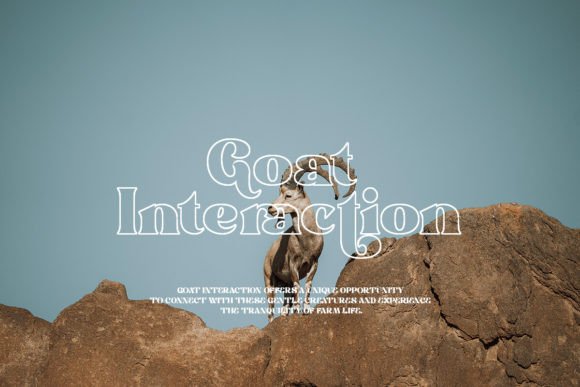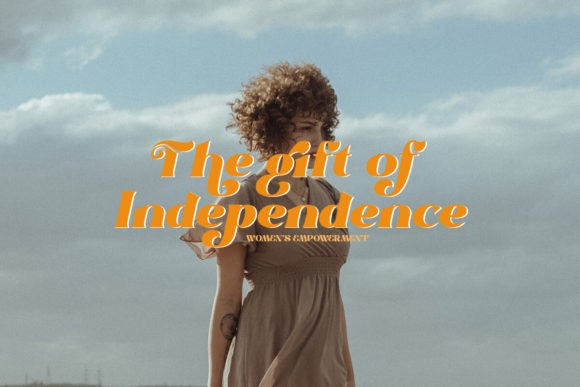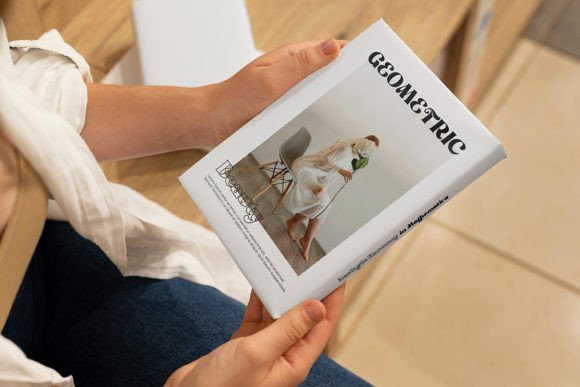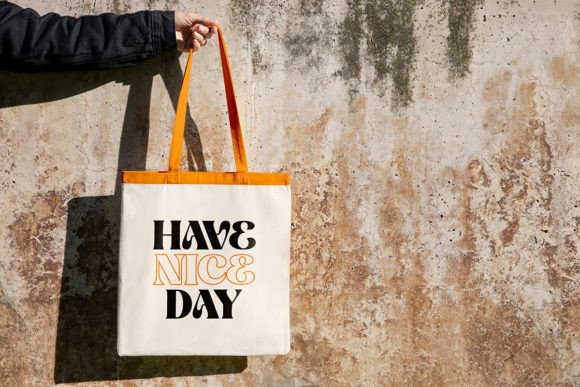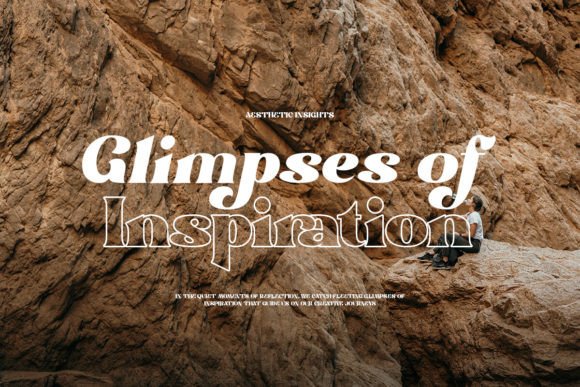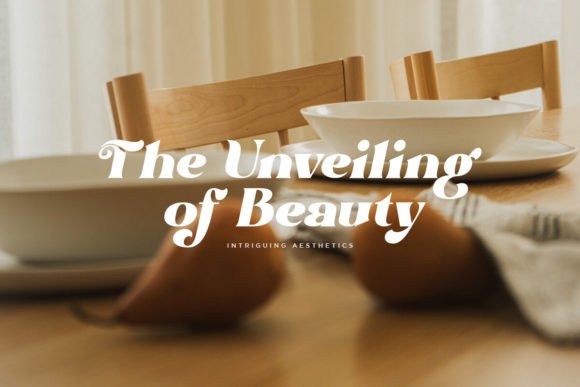
Emerge Font: A Bold Serif Display Typeface for Unforgettable Designs
In the world of typography, fonts play a crucial role in conveying messages, evoking emotions, and creating a lasting impression. Among the numerous typefaces available, the Emerge Font stands out with its unique and bold serif display style. This captivating font is designed to make a statement, featuring distinctive thick lines that exude strength and firmness. In this article, we’ll explore the Emerge Font in-depth, discussing its characteristics, uses, and benefits for designers and crafters.
Classic Serif Elements Meet Modern Touches
The Emerge Font seamlessly combines classic serif elements with modern touches, creating a visually striking and bold appearance. The font’s serif style is reminiscent of traditional typefaces, while its modern twists add a fresh and contemporary feel. This blend of old and new makes the Emerge Font an excellent choice for designers seeking to create elegant yet modern designs.
Unforgettable Visual Appeal
The Emerge Font is specifically designed to evoke elegance while maintaining a modern edge. Its bold and striking appearance makes it ideal for graphic design projects, posters, and layouts that require an unforgettable visual appeal. Whether you’re working on a branding project, a magazine layout, or a promotional poster, the Emerge Font is sure to grab attention and leave a lasting impression.
Key Features of the Emerge Font
- Bold Serif Style: The Emerge Font features a bold serif style with distinctive thick lines, giving each letter a sense of strength and firmness.
- Classic-Modern Blend: The font combines classic serif elements with modern touches, creating a unique and visually striking appearance.
- Elegant yet Modern: The Emerge Font evokes elegance while maintaining a modern edge, making it suitable for a wide range of design projects.
- High Versatility: The font’s bold and striking appearance makes it ideal for various design applications, from graphic design projects to posters and layouts.
Using the Emerge Font in Design Projects
The Emerge Font is an excellent choice for designers and crafters working on various projects, including:
- Branding and Logo Design: The font’s bold and striking appearance makes it perfect for creating memorable logos and brand identities.
- Poster Design: The Emerge Font is ideal for creating eye-catching posters that grab attention and convey messages effectively.
- Magazine and Layout Design: The font’s elegant yet modern style makes it suitable for magazine layouts, brochures, and other print materials.
- Graphic Design Projects: The Emerge Font can be used in various graphic design projects, such as business cards, letterheads, and packaging design.
Benefits of Using the Emerge Font
The Emerge Font offers several benefits for designers and crafters, including:
- Unique and Memorable Designs: The font’s bold and striking appearance helps create unique and memorable designs that stand out from the crowd.
- Time-Saving: The Emerge Font is designed to be versatile and adaptable, saving designers time and effort in finding the perfect typeface for their projects.
- Ease of Use: The font is easy to read and works well in various design applications, making it a convenient choice for designers.
In conclusion, the Emerge Font is a captivating typeface that offers a unique and bold serif display style. Its blend of classic serif elements and modern touches creates a visually striking and bold appearance, making it ideal for designers and crafters seeking to create unforgettable designs. With its high versatility, ease of use, and bold style, the Emerge Font is an excellent addition to any design project.
Whether you’re a seasoned designer or a crafty DIY enthusiast, the Emerge Font is sure to inspire and elevate your designs. So, why settle for ordinary fonts when you can make a statement with the Emerge Font?